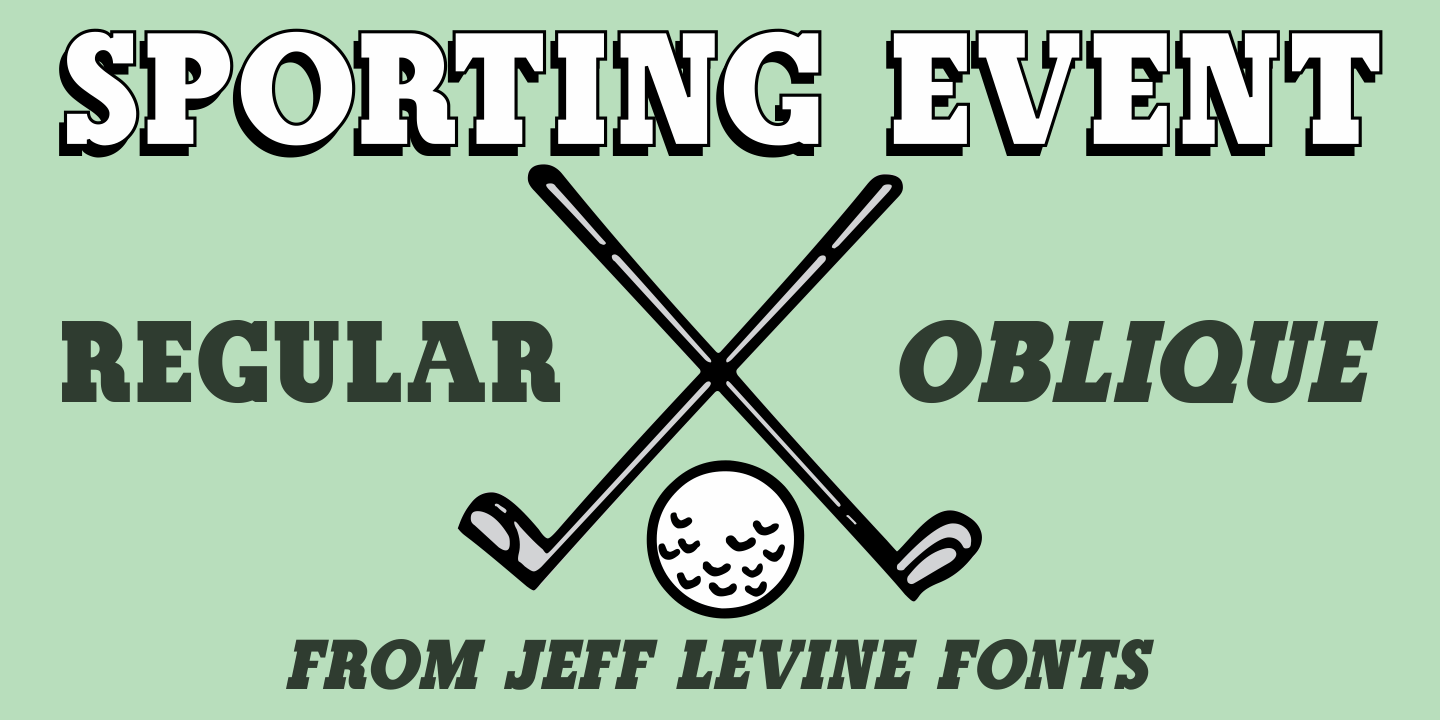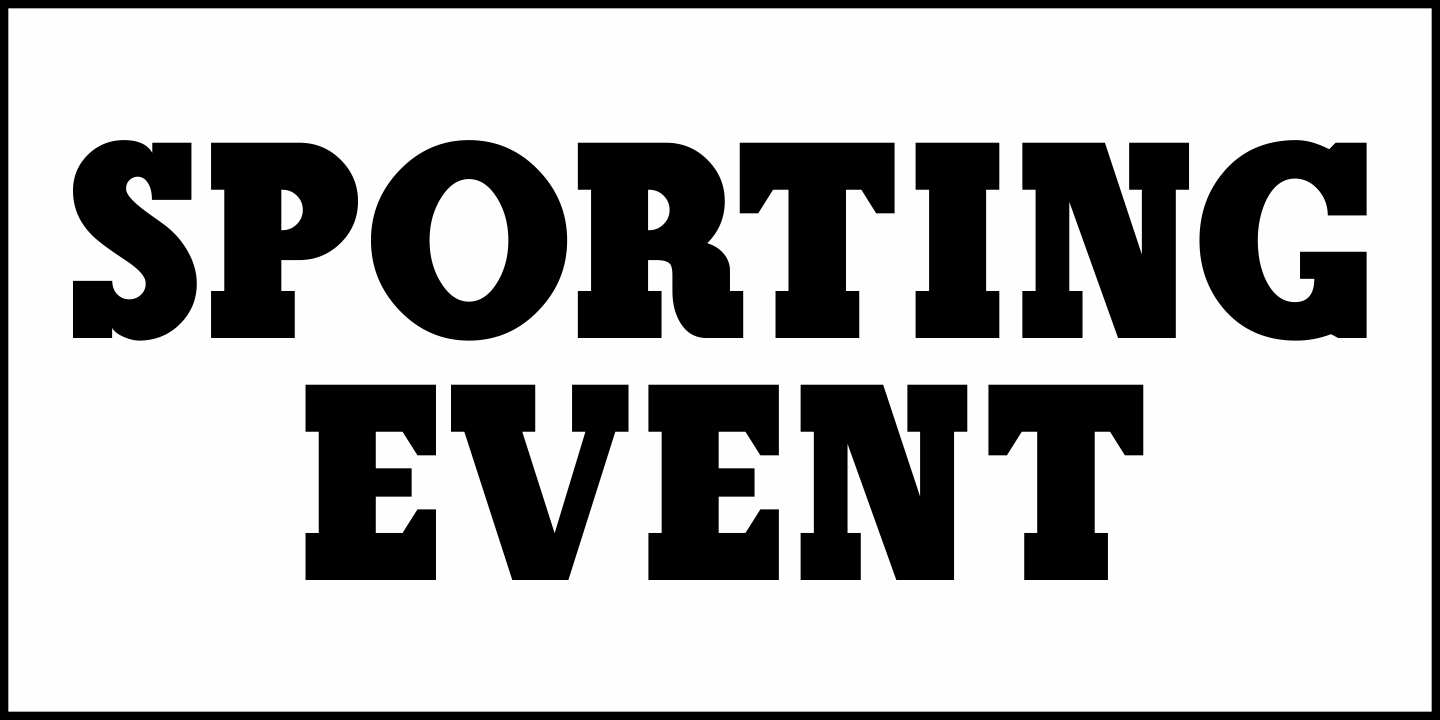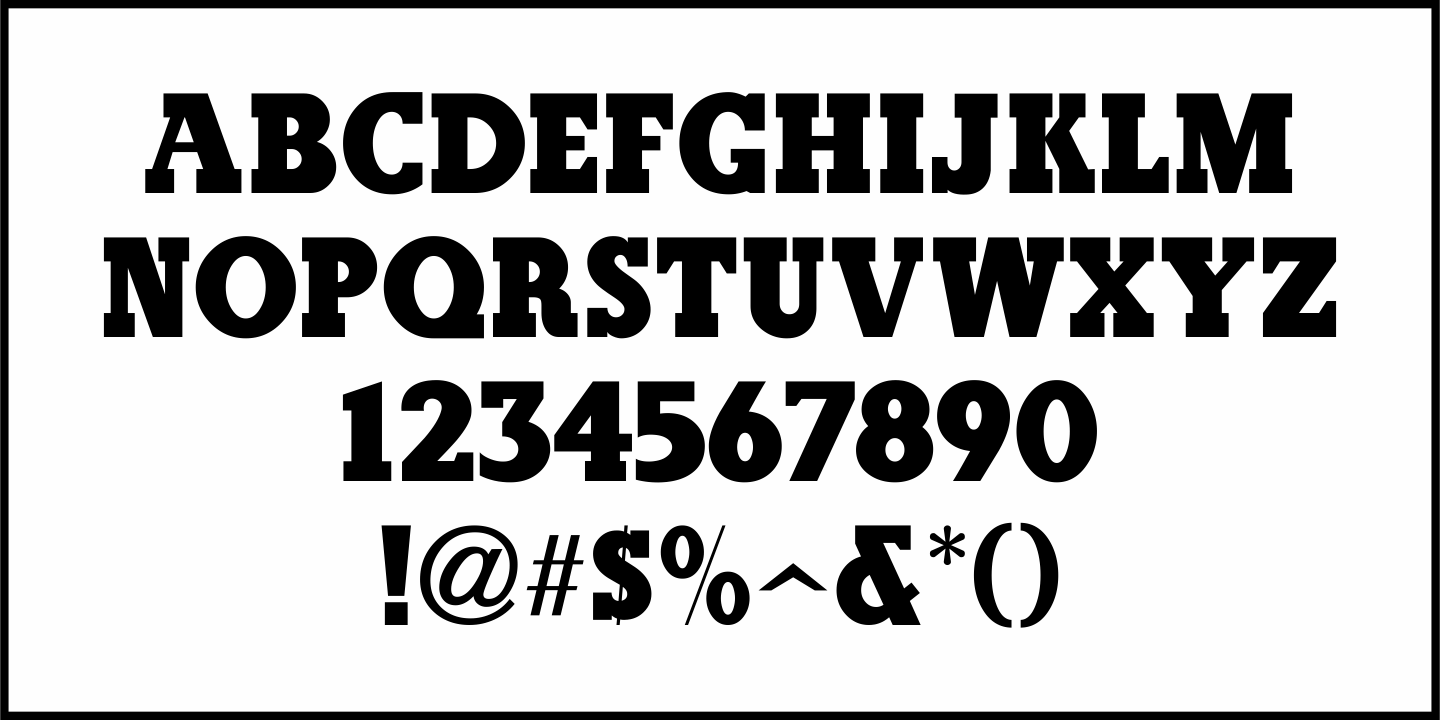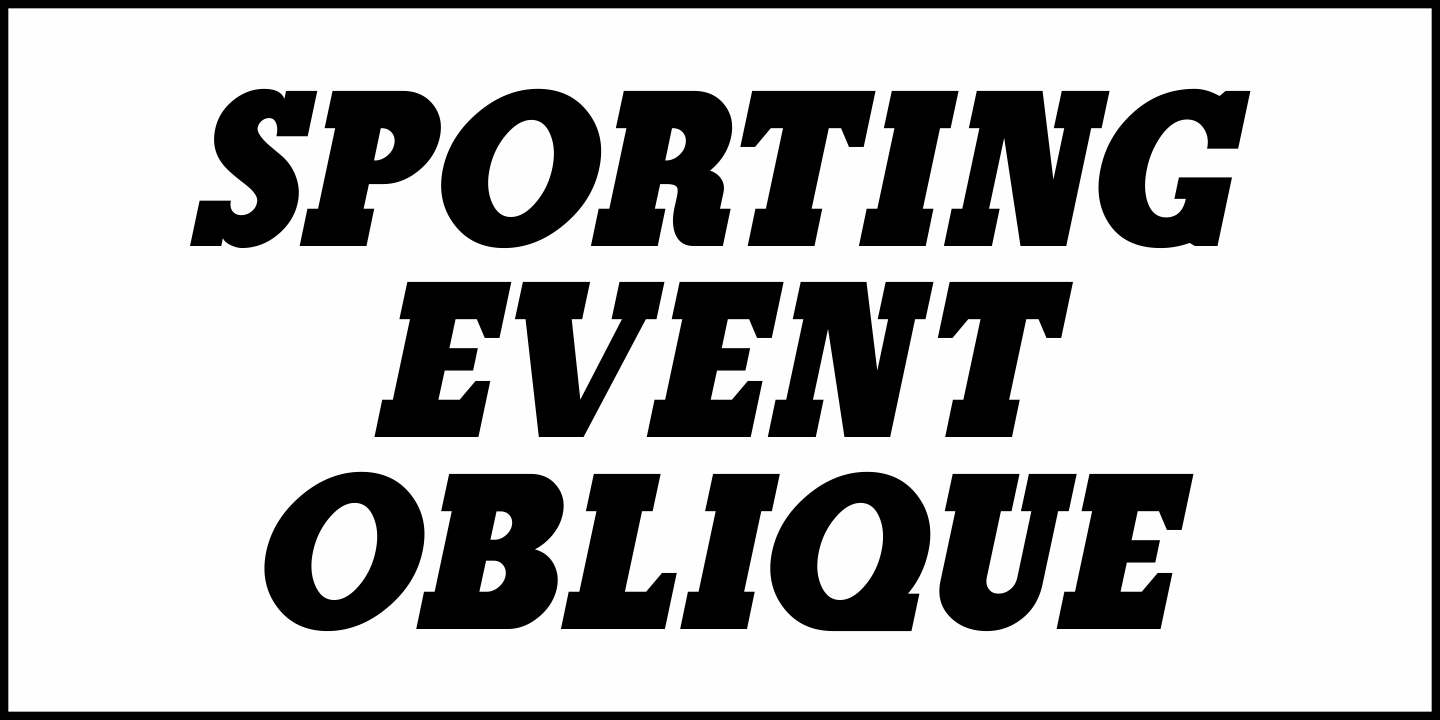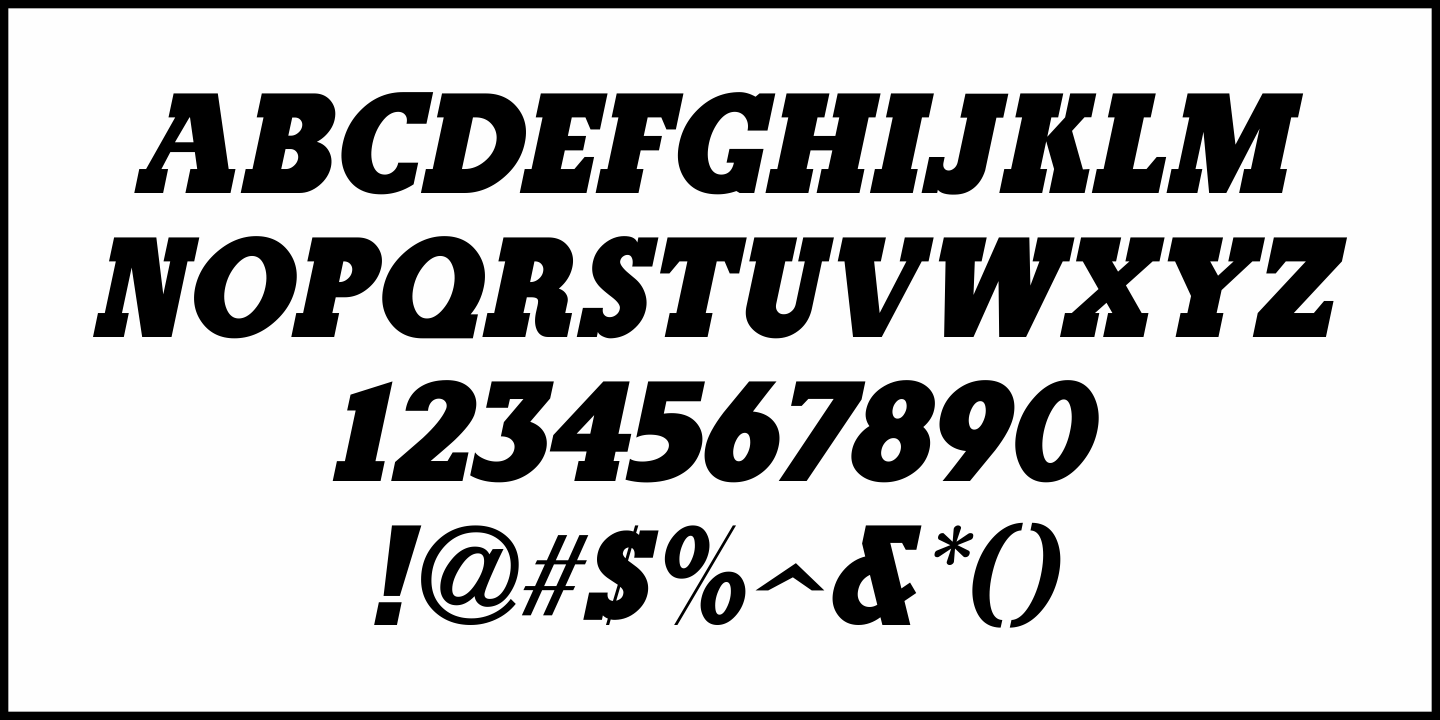
Sporting Event
A British boxing film from 1953 called “The Square Ring” had its titles and credits hand lettered in a slab serif type style commonly referred to as “Egyptian”. Other familiar type fonts which share this influence are Karnak, Stymie and Beton.
Sporting Event JNL was modeled from the film’s titles and is available in both regular and oblique versions.